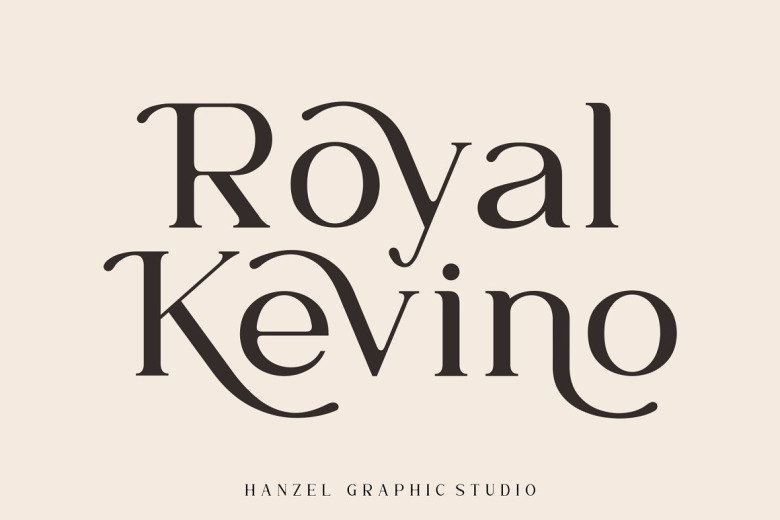
Royal Kevino Font
Royal Kevino is a modern serif font. With its neat and beautiful arrangement of letters, this typeface will look outstanding in both formal and non-formal designs. Perfect for gorgeous logos & titles, Royal Kevino will pair beautifully with many fonts and work well with whatever project you’re working on.
Royal Kevino Serif Font